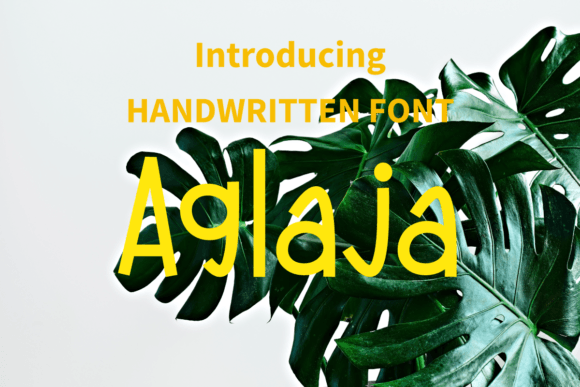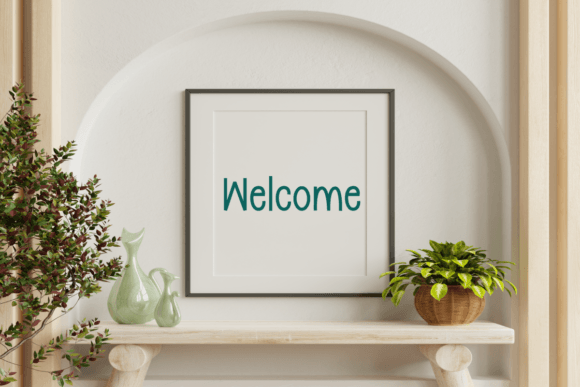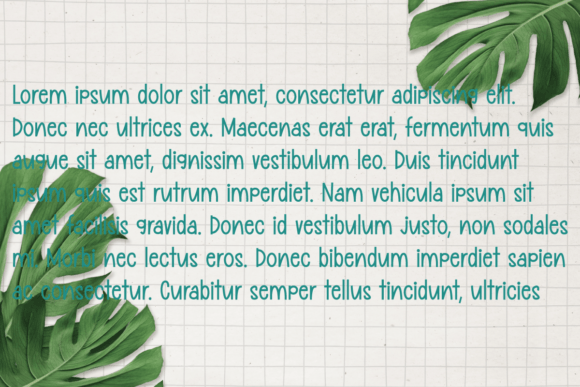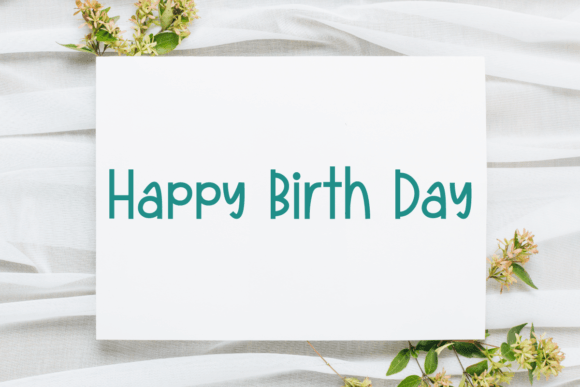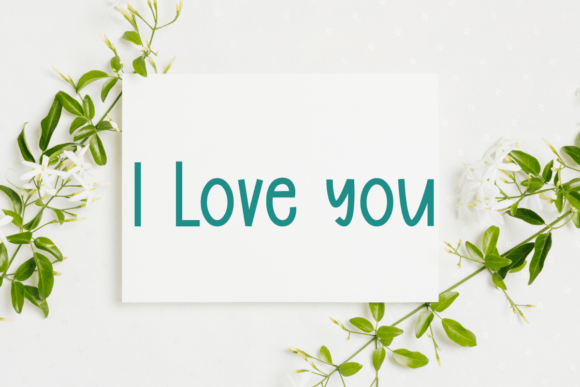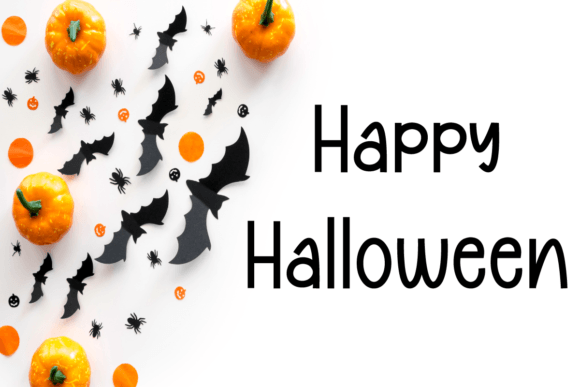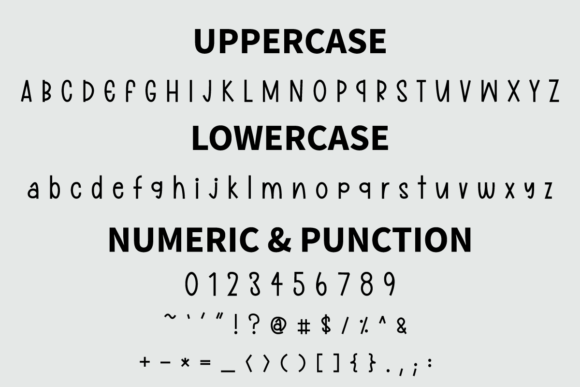
Aglaja Font
Aglaja Font: Charming Handwriting for Playful Designs
“Aglaja” is a delightful handwritten font that exudes fun and friendliness. Its whimsical style adds joy and playfulness to various design projects.
Key Features of Aglaja Font
• Whimsical Style: Aglaja brings a quirky and cheerful feel to designs.
• Versatile Use: Suitable for many projects, from logo designs to wedding invitations.
• Authentic Look: Adds a personal touch to your typography.
Wedding Stationery
Aglaja’s charming style is ideal for creating unique and joyful wedding invitations and other special event materials.
Inspirational Quotes and Advertisements
Use Aglaja to design eye-catching quotes and advertisements that stand out with their playful appeal.
Magazine Layouts and Print Materials
The font’s friendly nature makes it perfect for creating engaging magazine layouts and print materials.
Why Choose Aglaja Font?
Aglaja offers more than just cute letters. Here’s why it stands out:
• Enhances designs with a sense of character and whimsy
• Creates an inviting and memorable atmosphere in typography
• Adapts well to various design themes and projects
By using Aglaja, you open up new design possibilities. Its playful style works well in many contexts, from greeting cards to poster designs. The font’s ability to convey joy can inspire creative ideas and help you approach projects from a fresh, lighthearted perspective.
Aglaja in Modern Design Trends
This font aligns perfectly with design trends that favor authenticity and personal touch. Its handwritten style adds a unique quality that resonates with audiences seeking genuine connections, making it particularly effective for brands targeting a friendly, approachable image.
If you’re looking for a font that’s both fun and versatile, Aglaja is an excellent choice. It’s perfect for adding a touch of whimsy to your work, especially for projects that need a playful, approachable feel.
Explore how Aglaja can transform your designs. From branding projects to personal creations, this font brings a delightful and engaging quality to your work.